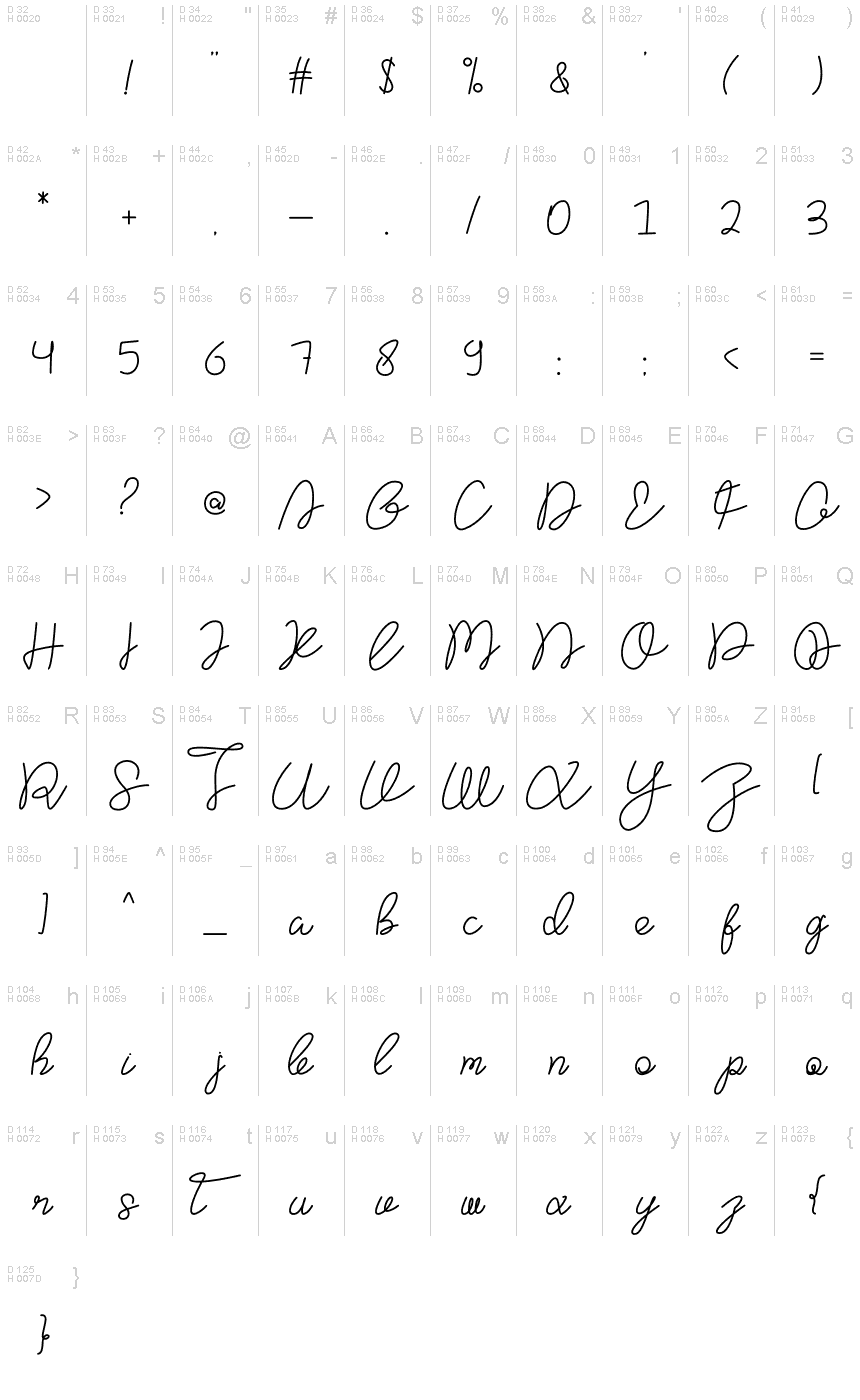
Talillat
Talillat, a charming handwritten font designed by Lontong Lodeh, is the perfect choice for creative projects that require a personal touch. Its extra-light weight adds an airy and delicate feel to any design while maintaining legibility. Talillat’s organic strokes and natural curves make it suitable for wedding invitations, menu cards, or even social media graphics that need a whimsical flair. This versatile typeface can also be used for children's books or greeting cards due to its playful nature. Elevate your designs with Talillat and add a touch of elegance to your work!